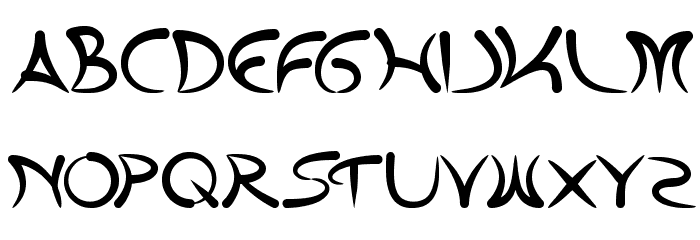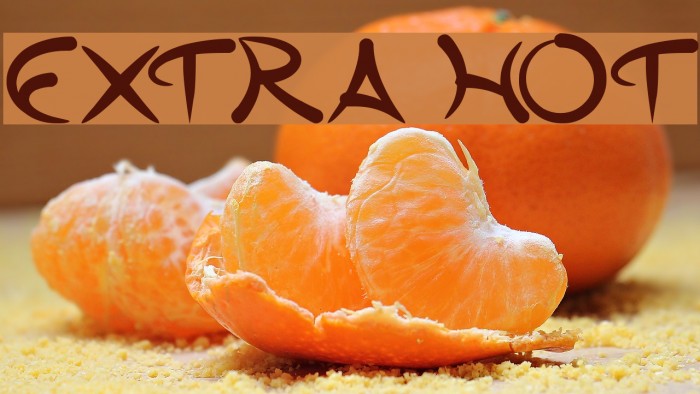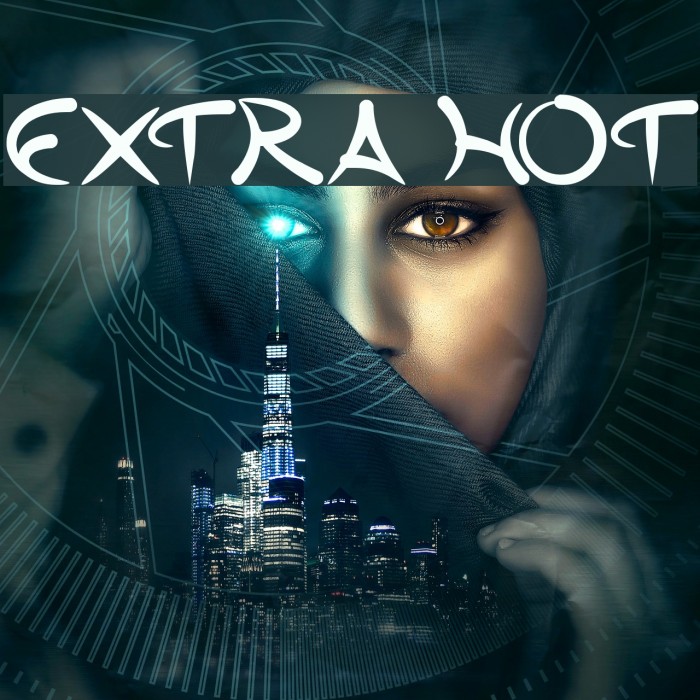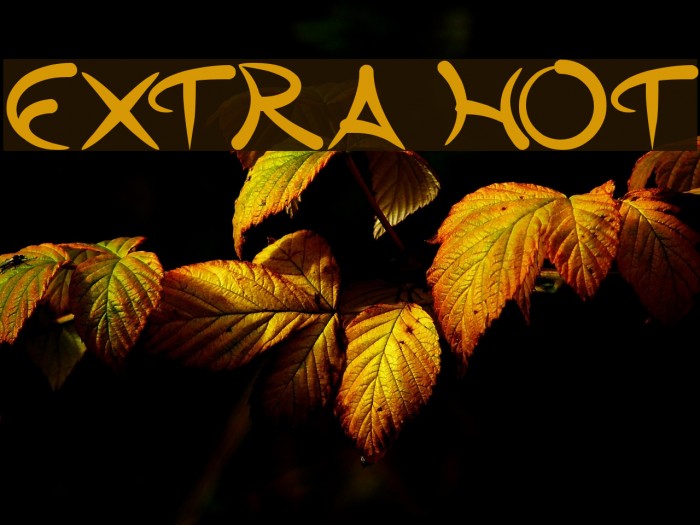
extra hot Font
This font features a unique and artistic design, characterized by its flowing and curved lines that create a sense of movement and dynamism. The letters have a calligraphic influence, with varying stroke widths that add a touch of elegance and sophistication. The overall appearance is both bold and graceful, making it stand out in any design. The uppercase and lowercase letters maintain a consistent style, ensuring readability while offering a distinct visual appeal. This font is ideal for projects that require a creative and expressive touch, such as branding, posters, and artistic designs.
An artistic font with flowing, calligraphic lines and dynamic curves.
- Font: extra hot
- Proposed Projects: Ideal for branding, posters, artistic designs, and creative projects.
- Overall Style: Artistic, Dynamic, Elegant
- Use Case: Headlines, Logos, Artistic designs